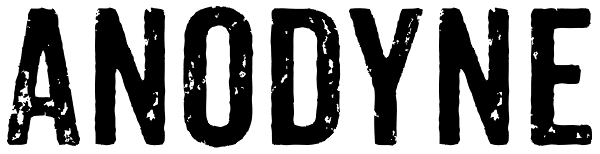
Anodyne
Anodyne is a warm and weathered all-caps font from Yellow Design Studio with hand-printed texture and unique shadow options. Features include four distress variations for each letter and at least two for every other character. Double-letter...